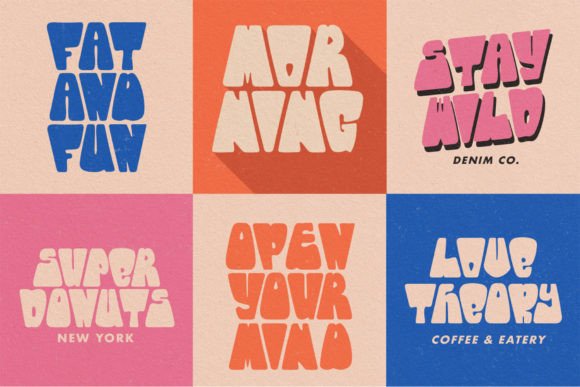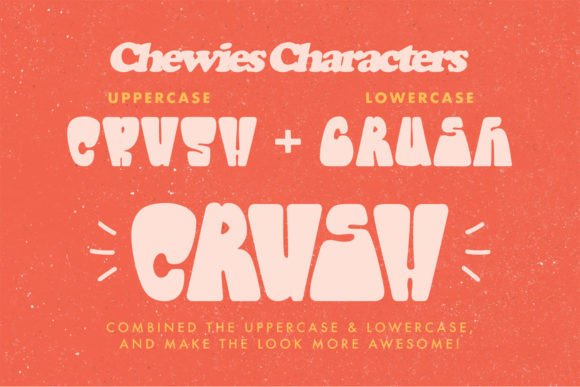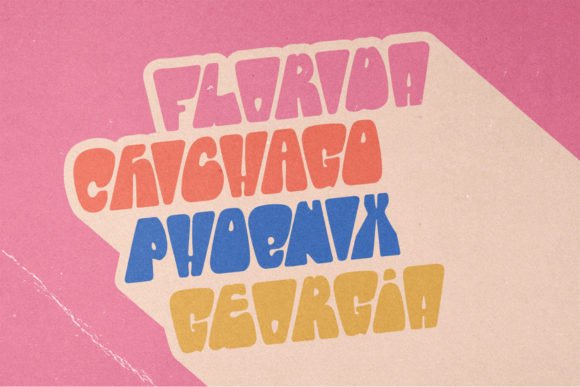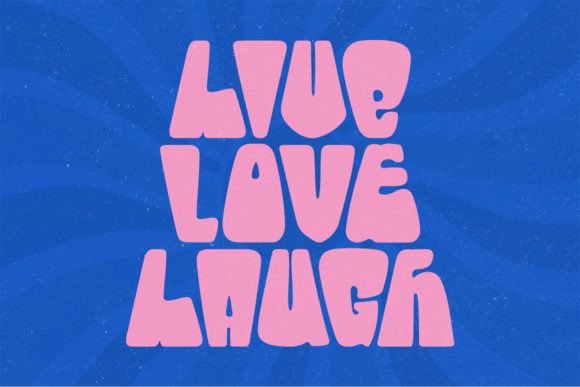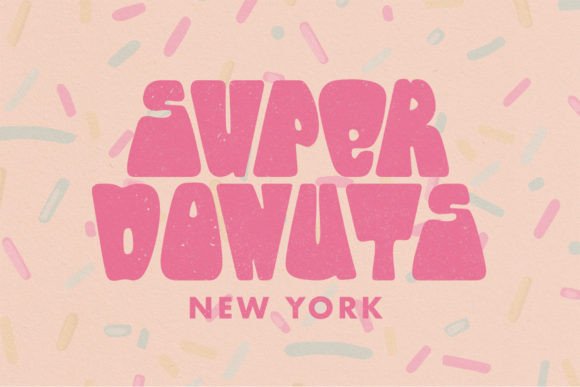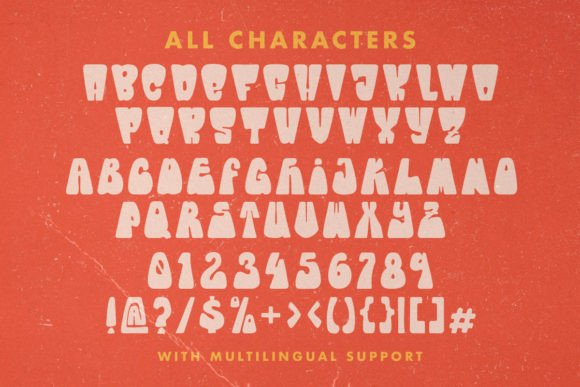
The Perfect Bite of Personality: Introducing Chewies Font
Who among us hasn’t found ourselves doodling in the margins of a notebook, or scribbling out a quick sketch on a sticky note? It’s those fleeting moments of creative expression that often spark our most innovative ideas. For designers, it’s the little things like a quirky font that can elevate a project from bland to grand. Enter Chewies Font, a bold display typeface that’s as playful as it is professional.
Designed to add a touch of whimsy to your designs, Chewies Font is perfect for projects that need a friendly and approachable accent. Whether you’re creating a brand identity, a social media campaign, or a marketing brochure, this typeface is sure to bring a smile to your audience’s face. And for designers, it’s a valuable tool that can help you stand out in a crowded market and bring a unique touch to your work.
Chewies Font Key Features
- Font Family: Chewies Font is a unique, hand-drawn font that offers a playful and whimsical feel to any design.
- Unique Characteristics: Features a distinctive, hand-drawn style with irregularities and imperfections, adding a touch of personality to any design.
- Character Set: Includes a comprehensive character set, including uppercase and lowercase letters, numbers, punctuation marks, and special characters.
Chewies Font Review
As a designer, I’ve had the chance to work with a lot of fonts, but Chewies Font is a unique one. It’s quirky, playful, and definitely grabs your attention.
What works well: ✨ The font’s bold and chunky feel makes it perfect for headings and titles. It’s also great for creating a fun and youthful vibe in branding and marketing materials. The font’s irregular shapes add a touch of personality to any design, making it stand out from more traditional fonts.
Some potential issues: ⚠️ One thing that might be a challenge is the font’s limited legibility at smaller sizes. The bold strokes can make it difficult to read in smaller text, so it’s best used for larger headings and titles. Additionally, the font’s uniqueness can also be a double-edged sword – while it’s great for creating a unique look, it might not be the best choice for designs that need a more professional or traditional feel.
Overall, I’d say Chewies Font is a great choice for designers who want to add a bit of whimsy and personality to their designs. Just be mindful of its limitations and use it in contexts where its unique look will shine.
- Best for: Headings, titles, branding, marketing materials, and designs that need a fun and youthful vibe
- Not ideal for: Small text, professional or traditional designs
Tips for Getting the Most Out of Chewies Font
Chewies Font is best used for informal or playful designs, such as social media graphics, blog posts, or children’s materials.
Experiment with different font sizes and styles to create a unique and eye-catching look.
Chewies Font is commonly used for:
- Social media graphics and advertisements
- Blog posts and articles
- Children’s materials and educational resources
- Playful and creative designs
Alternatives to Chewies Font
Great Vibes Font is a modern script font that is perfect for use in creative, artistic, and emotive designs. It is ideal for use in invitations, posters, and other promotional materials that require a sense of excitement and energy. Compared to Chewies Font, Great Vibes Font has a more fluid and expressive feel, making it suitable for designs that require a sense of movement and dynamism.
Q: What is the character set for Chewies Font?
Chewies Font includes a comprehensive character set that supports a wide range of languages, including English, Spanish, French, German, and many others. The font also includes a full set of punctuation marks, numbers, and symbols. Please refer to the font’s documentation for a detailed list of supported languages and characters.